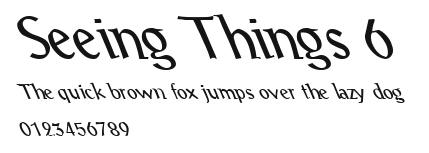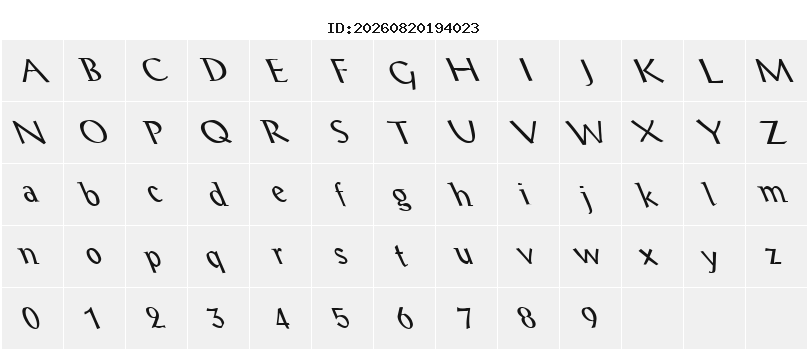
• Font Name: Seeing Things 6
• Font ID: FontMonger:Post Antiqua Roman Leftified
• Full Font Name: Seeing Things 6
• Version: 1.0 Mon May 01 21:50:54 1995
• PostScript Name: PostAntiquaRomanLeftified
• Character Count: 322
About Seeing Things 6.ttf
Seeing Things 6.ttf is a modern, elegant sans-serif font designed for ultimate readability and visual harmony. Perfect for branding, headlines, web design, and print materials.